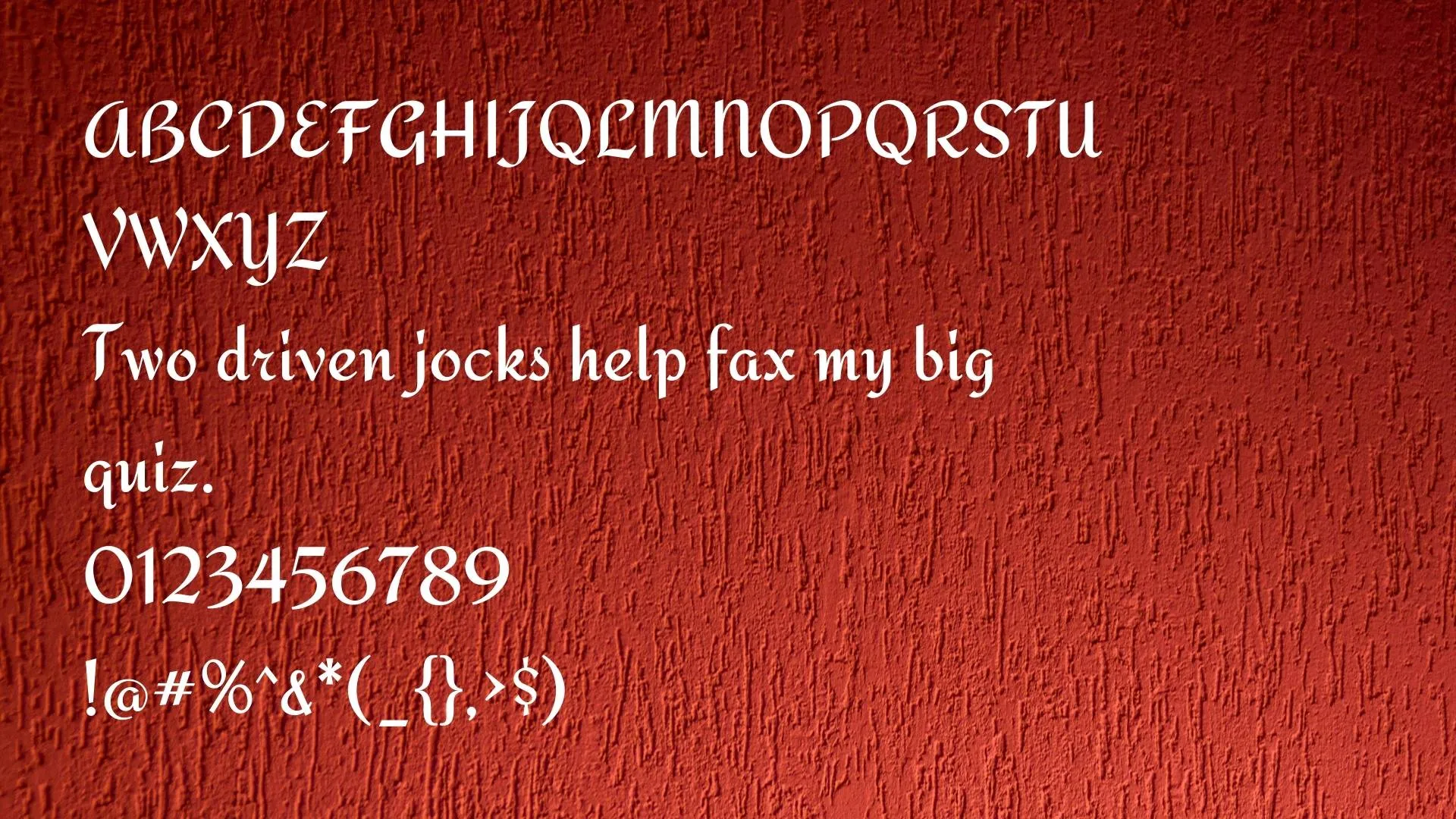
Redressed Font is designed and released through a famous company named “Astigmatic One Eye Typographic Institute” This is a medium-weight typeface font that is free for any type of use.
This font comes in one regular weight that provides many different uppercase, lowercase, glyphs, numerals, and characters that give your project or design a new look.
View of Redressed Font
Redressed Font Info
| Name | Redressed Font |
| Designer | Astigmatic AOETI |
| Style | Handwritten |